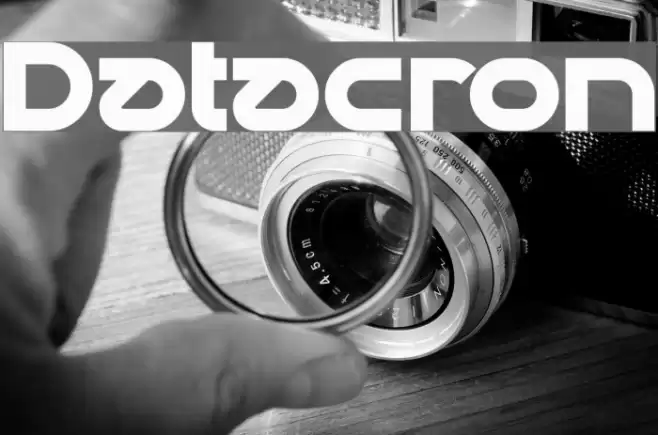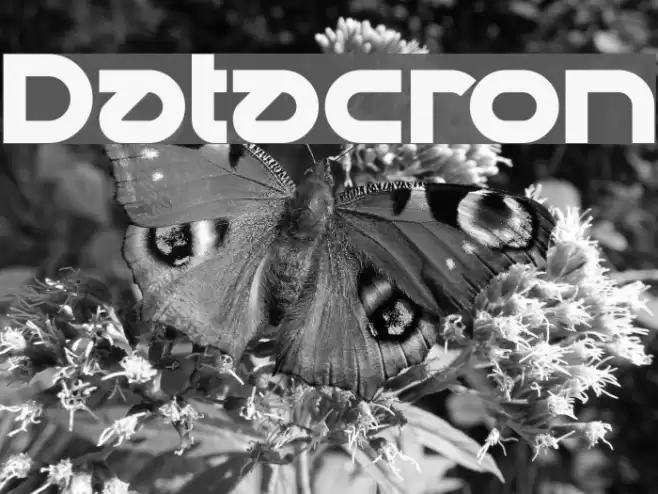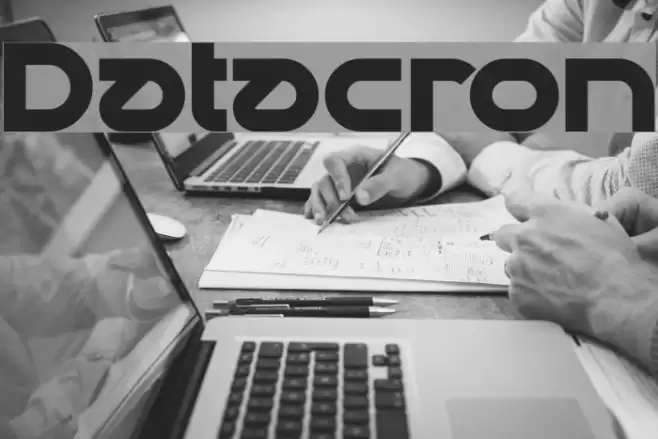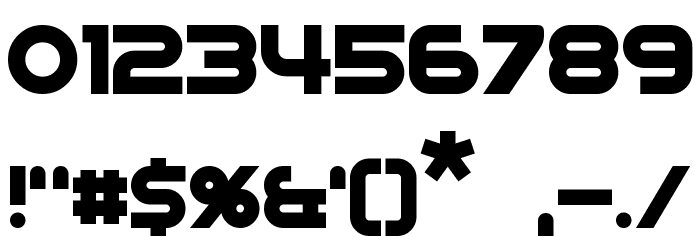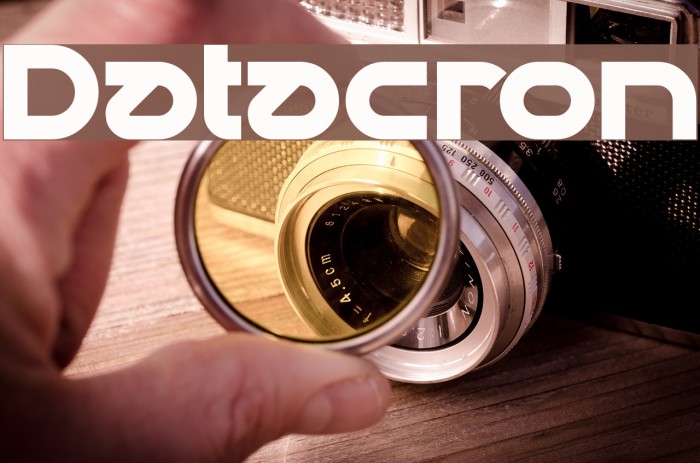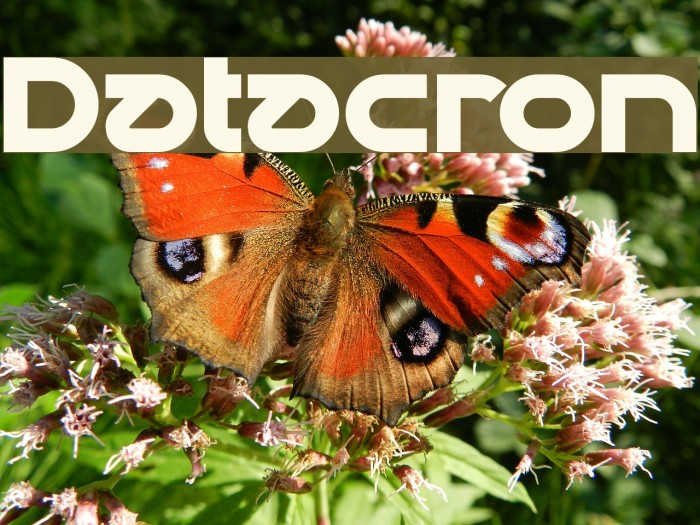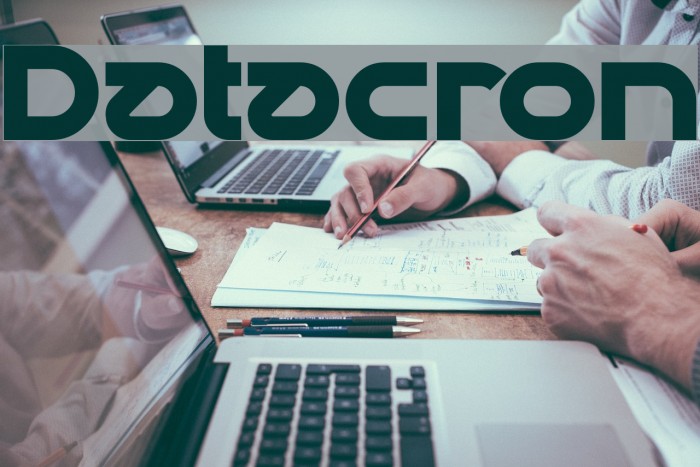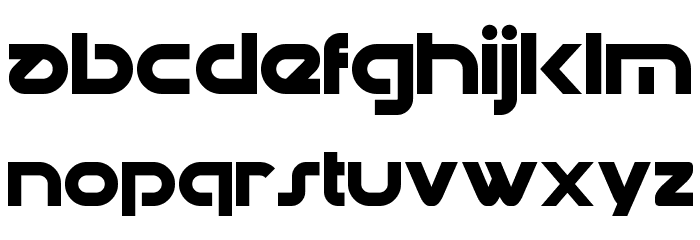
Datacron Font
Datacron Description
This font features a bold and futuristic design with geometric shapes and clean lines. The uppercase letters are strikingly angular, while the lowercase letters maintain a rounded, yet structured appearance. The numerals are consistent with the overall style, offering a modern and tech-inspired look. Special characters are designed to complement the font's aesthetic, making it suitable for digital and print media. The uniformity in stroke width across all characters provides a cohesive and balanced appearance, enhancing readability while maintaining a distinctive style.
- Proposed Projects: Ideal for tech branding, digital interfaces, video game design, and sci-fi themed projects.